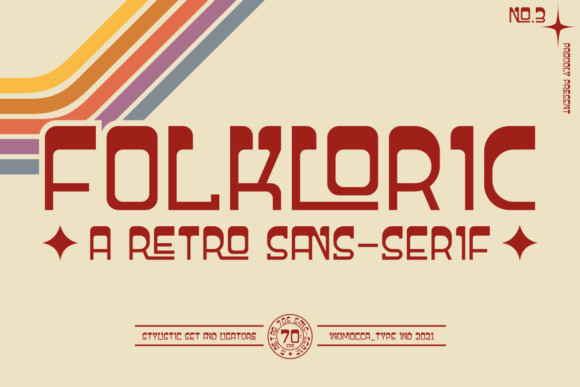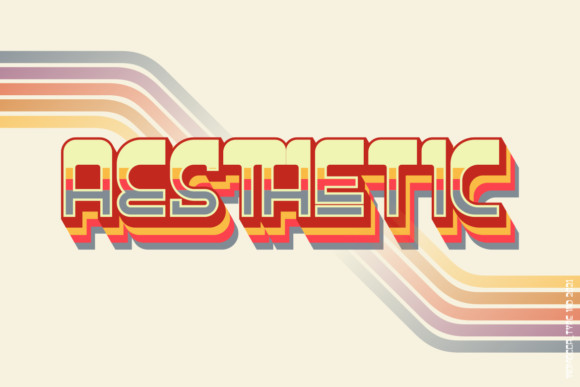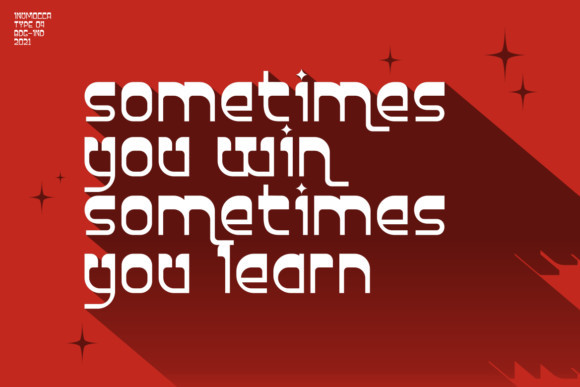
Folkloric Font
Folkloric is an incredibly unique display font. Masterfully designed to become a true favorite, this font has the potential to bring each of your creative ideas to the highest level!